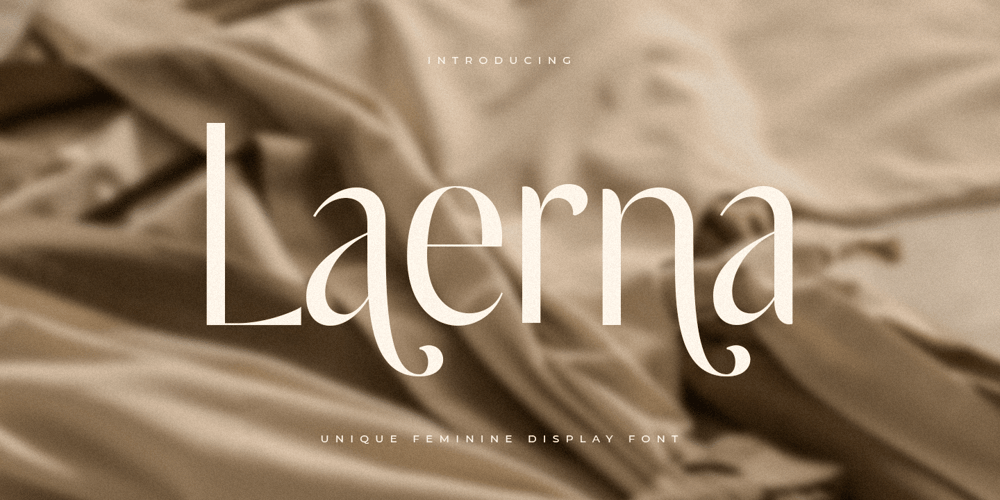
Laerna
Laerna font
Laerna Font Family was designed by Zamroni Hamzah and published by Sensatype Studio. Laerna contains 1 styles and family package options. An Unique Feminine Display Serif font that we created special for elegant branding needs, with unique shape will be ready to add value of your brand. And specially for Belgium font, We prepared any characters to help you create unlimited variations for your creative needs.Laerna Unique Feminine Display Serif Font ready with: Ready with Alternate Fancy Characters Preview as a inspirations that you can do with Laerna font Ready with Lowercase and Uppercase characters Wish you enjoy our font. 🙂